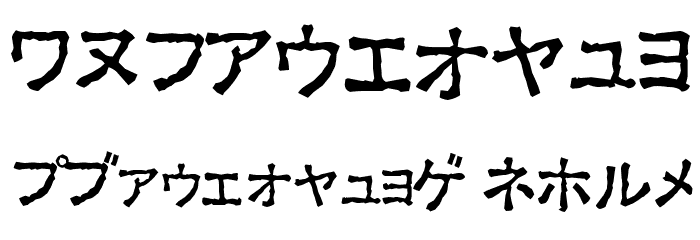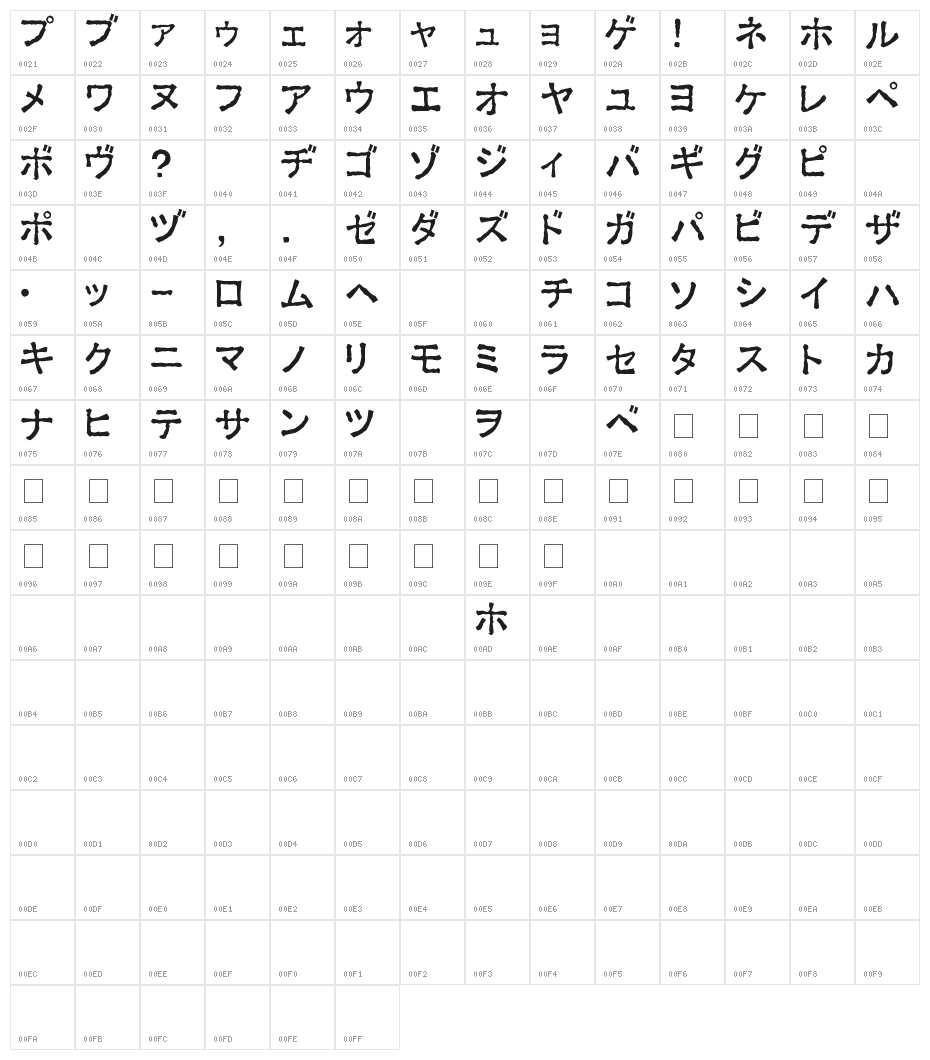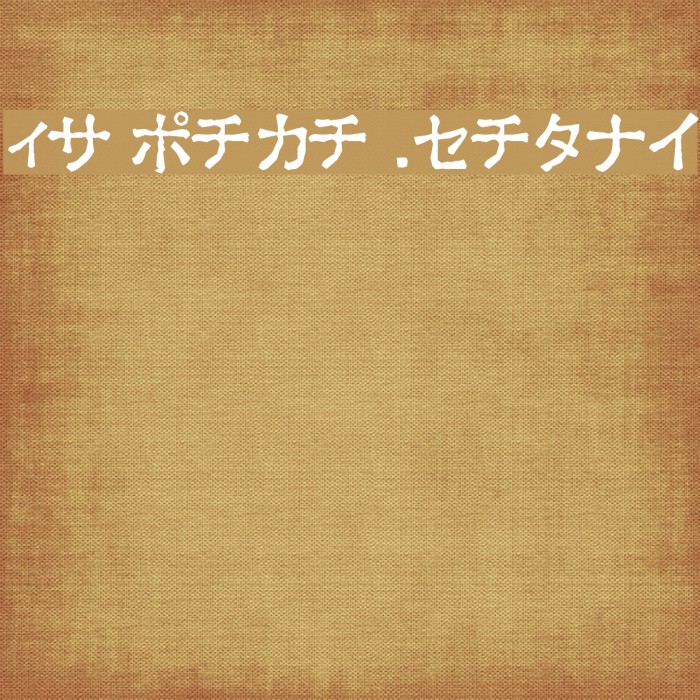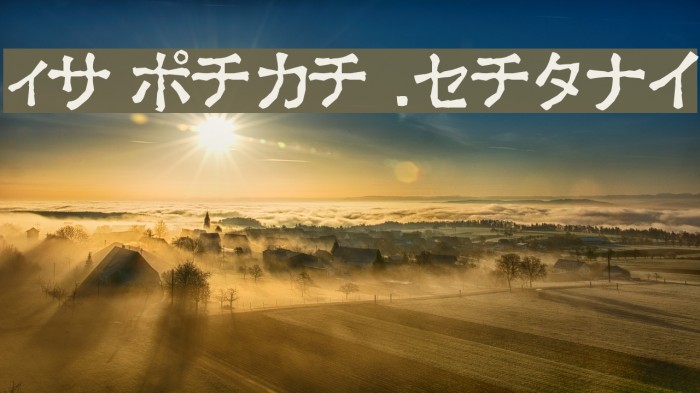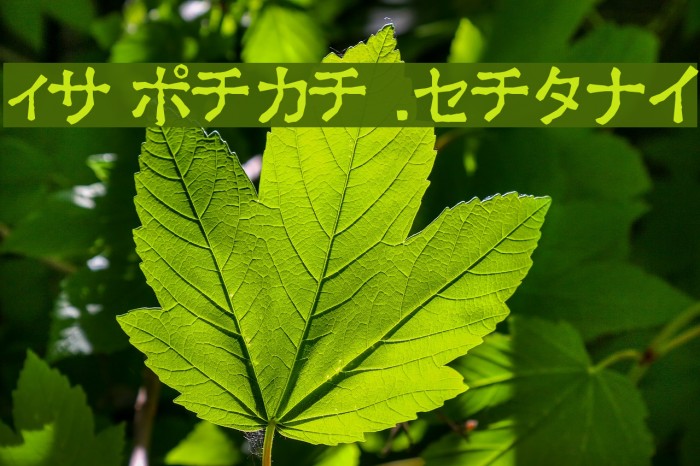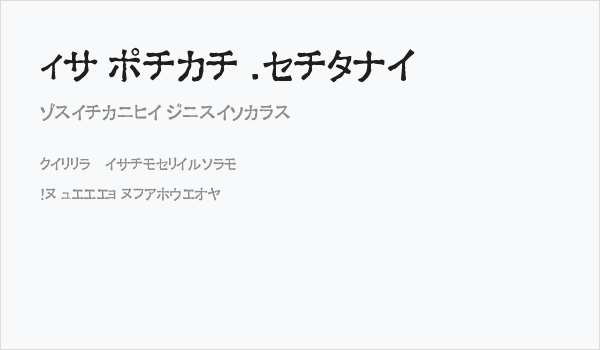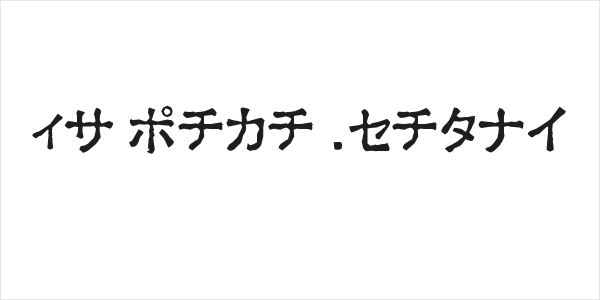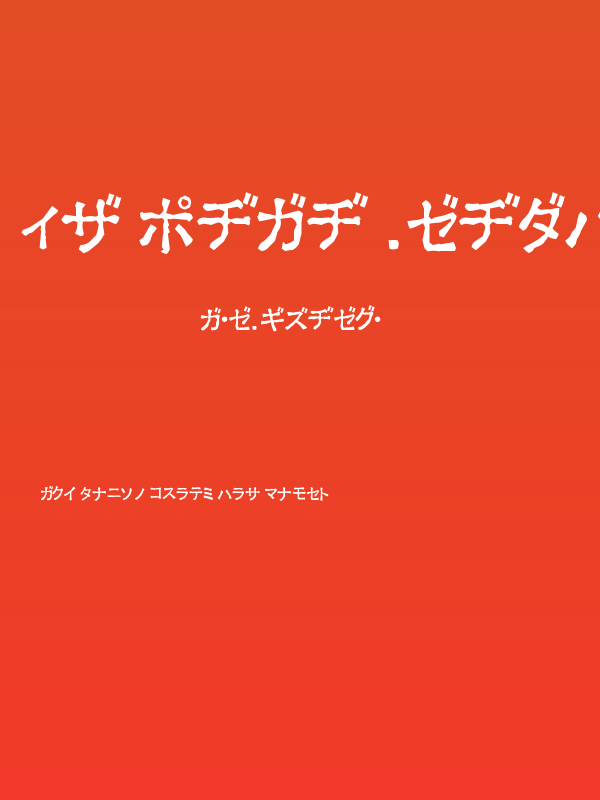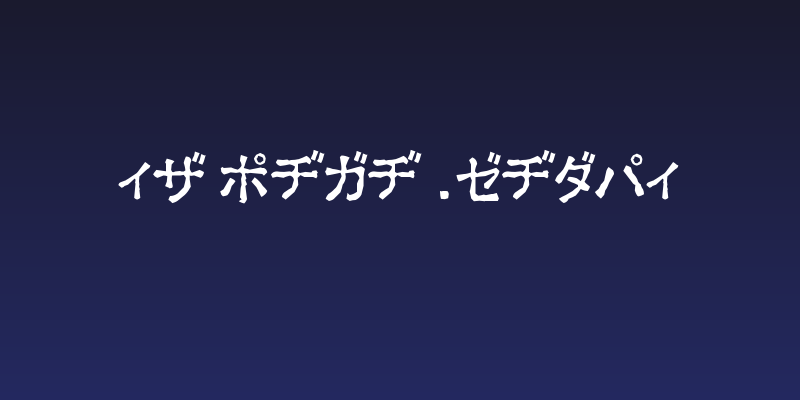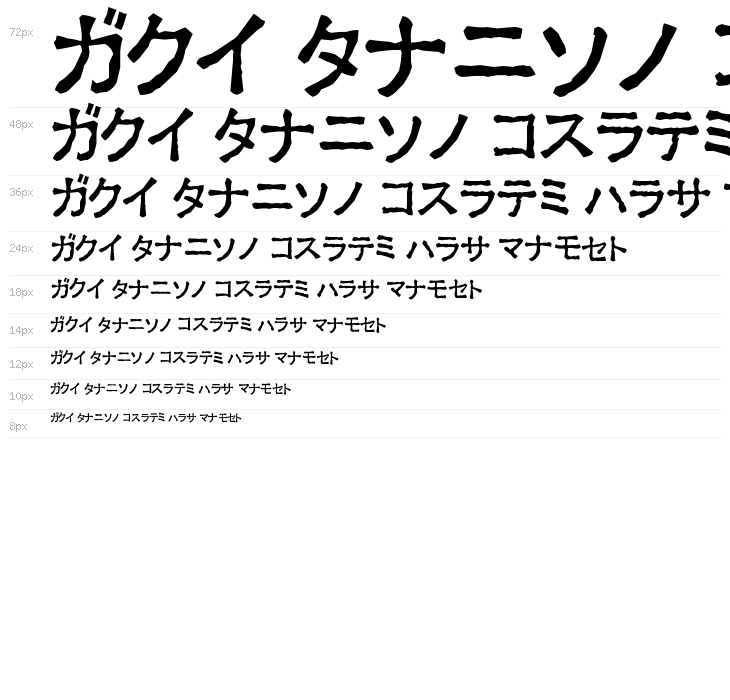
Ex Kata Opaque Font
Ex Kata Opaque Description
This font features a bold and dynamic style with a brush-like texture that gives it a handcrafted appearance. The characters are slightly irregular, adding a sense of movement and energy. The strokes are thick and varied, creating a high contrast between the different parts of each letter. This font is reminiscent of traditional calligraphy, yet it maintains a modern edge with its bold presence. The spacing between characters is relatively tight, enhancing the compact and cohesive look of the text. Overall, this font exudes a sense of creativity and expressiveness, making it suitable for projects that require a strong visual impact.
| Proposed Projects | Ideal for artistic projects, branding, posters, and any design that requires a bold and expressive typeface. |